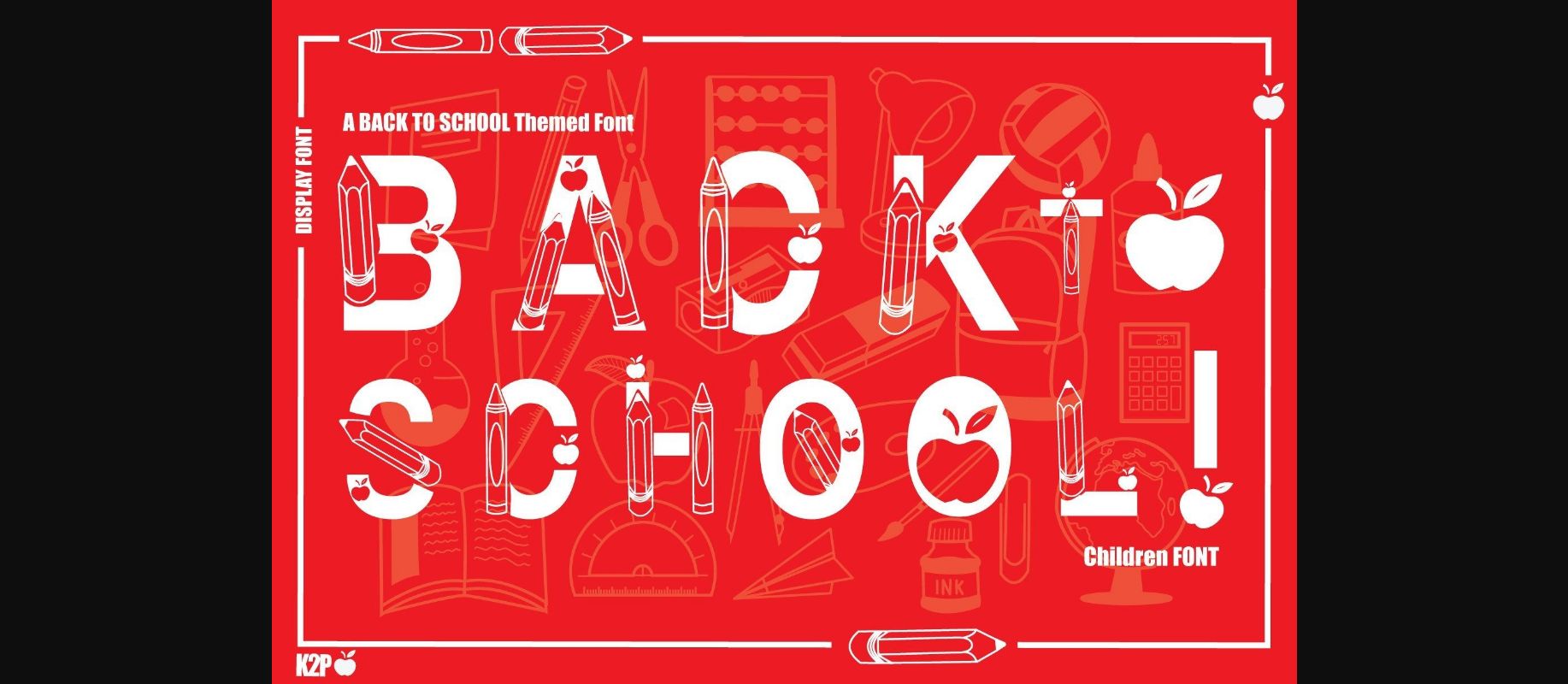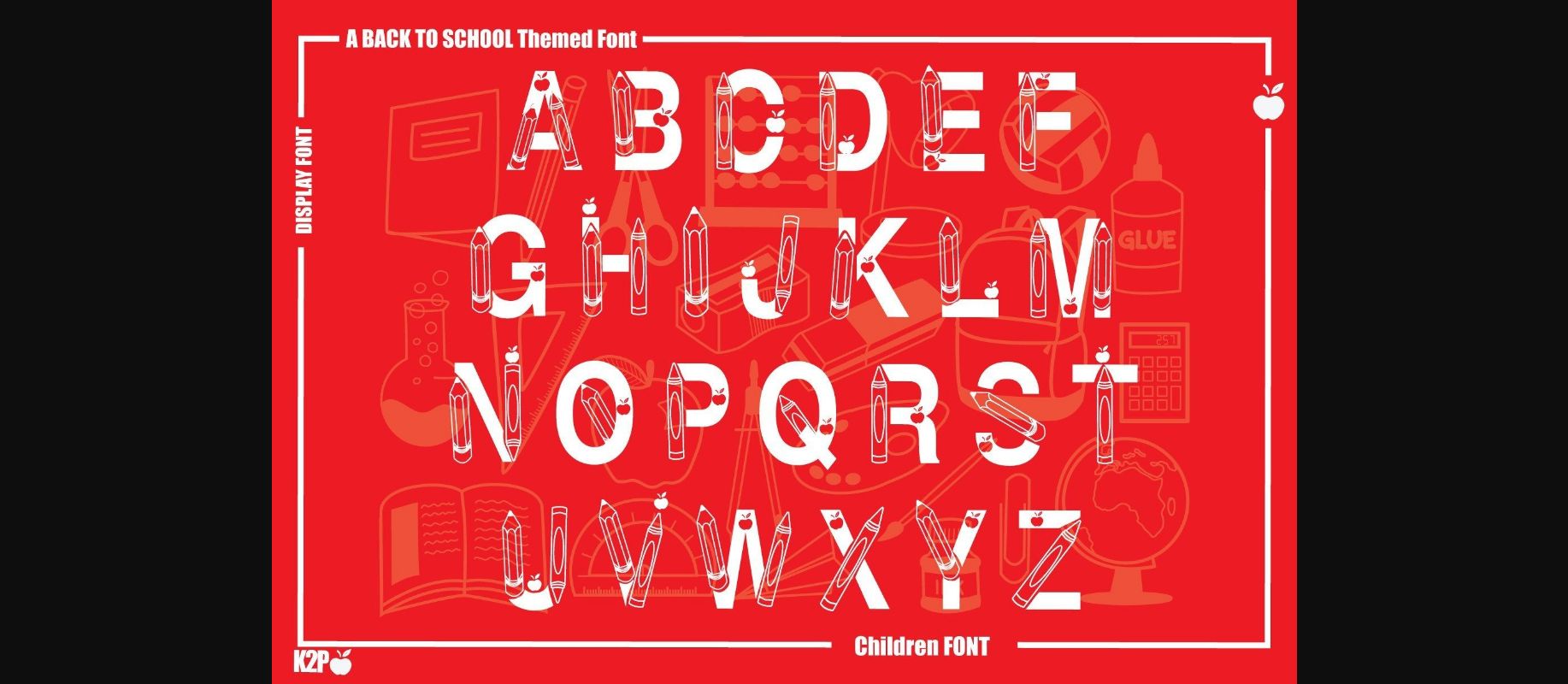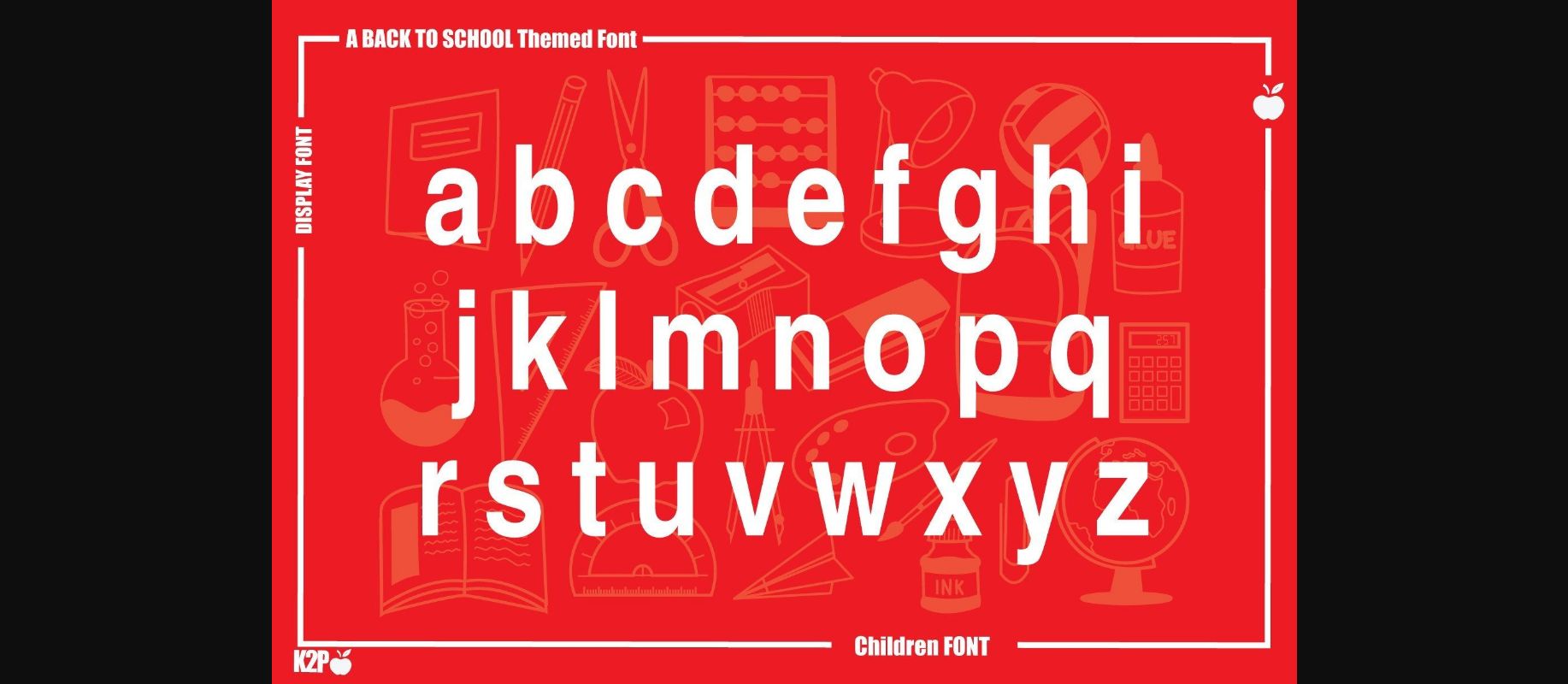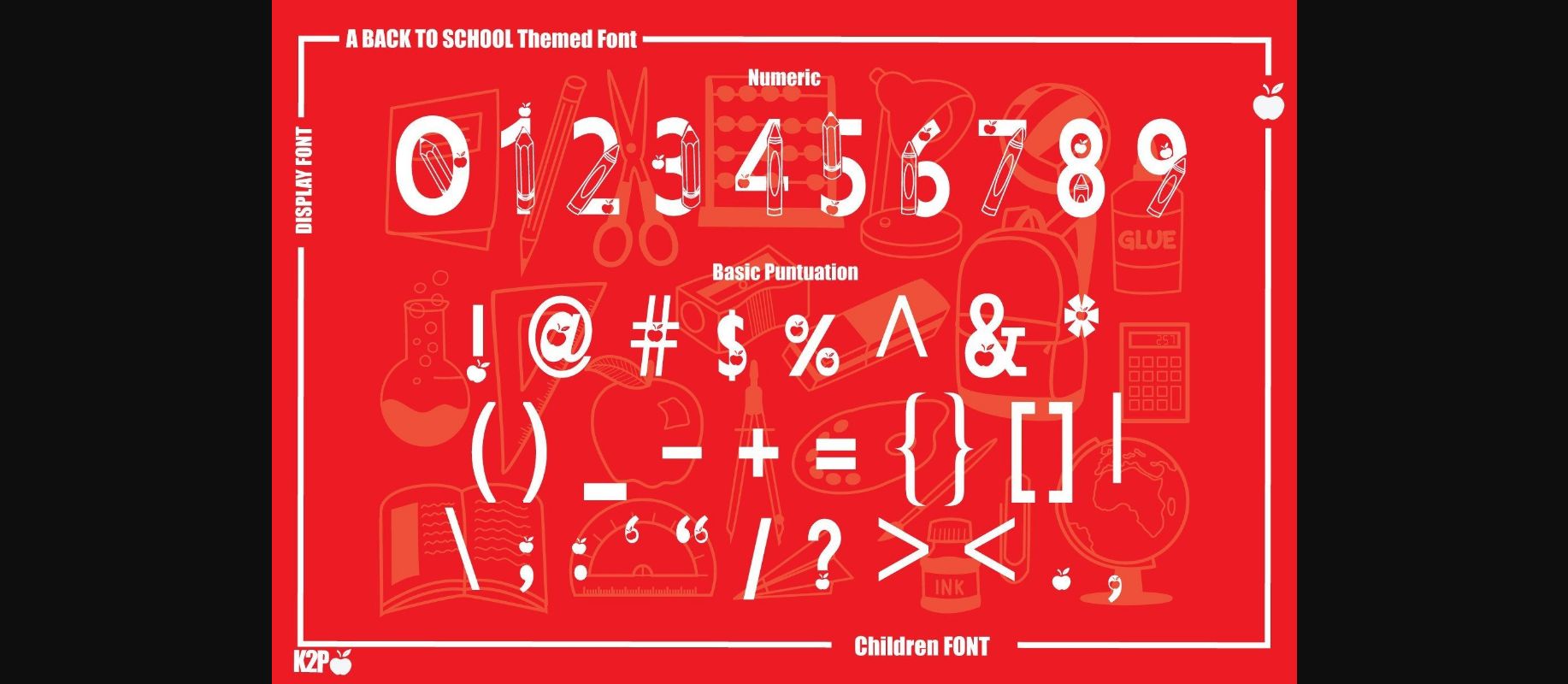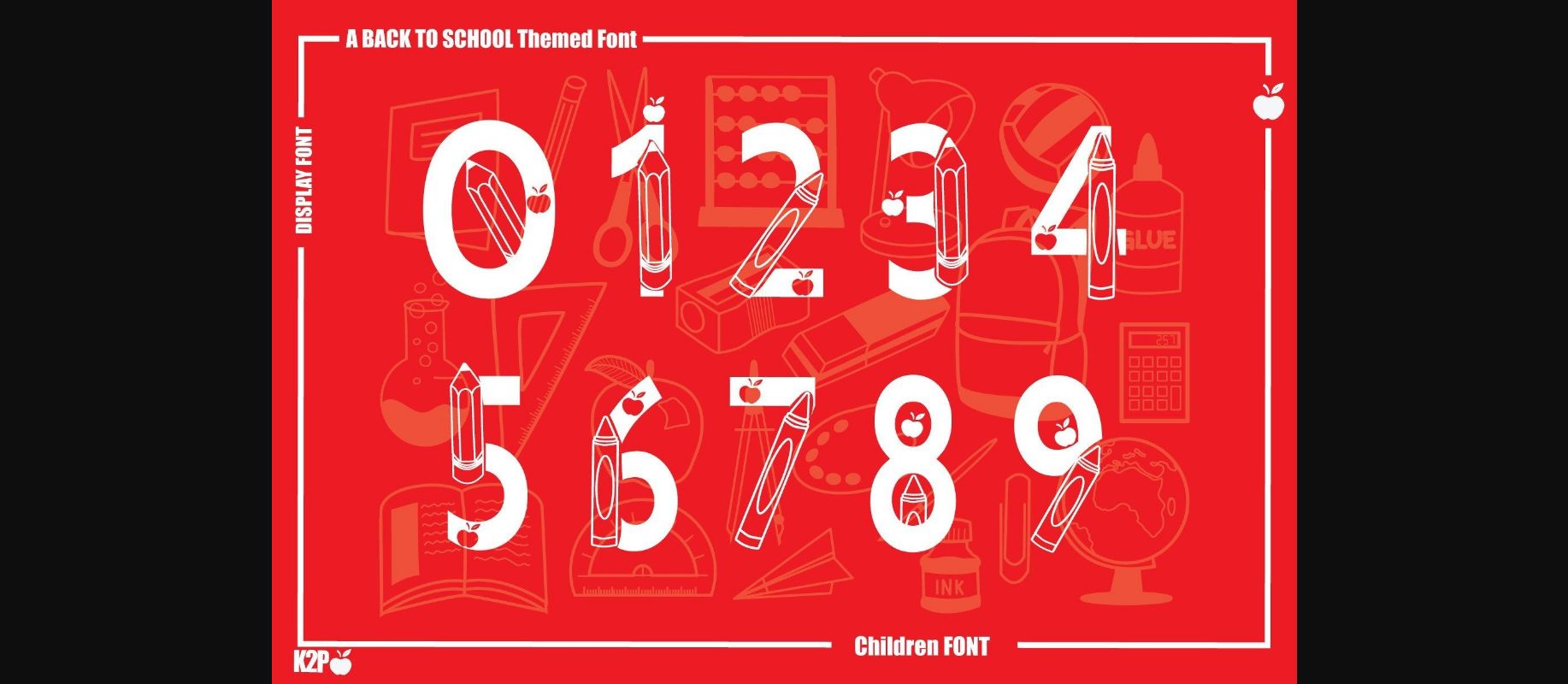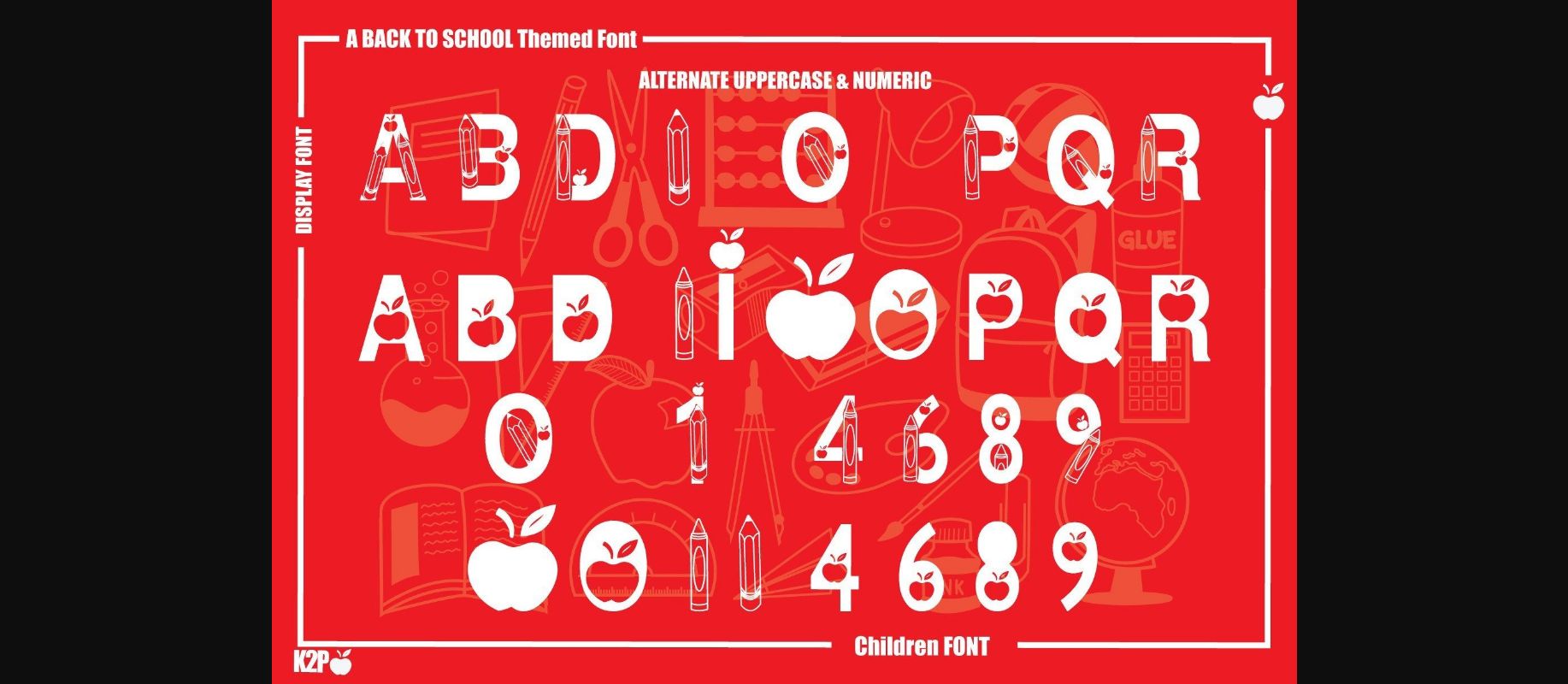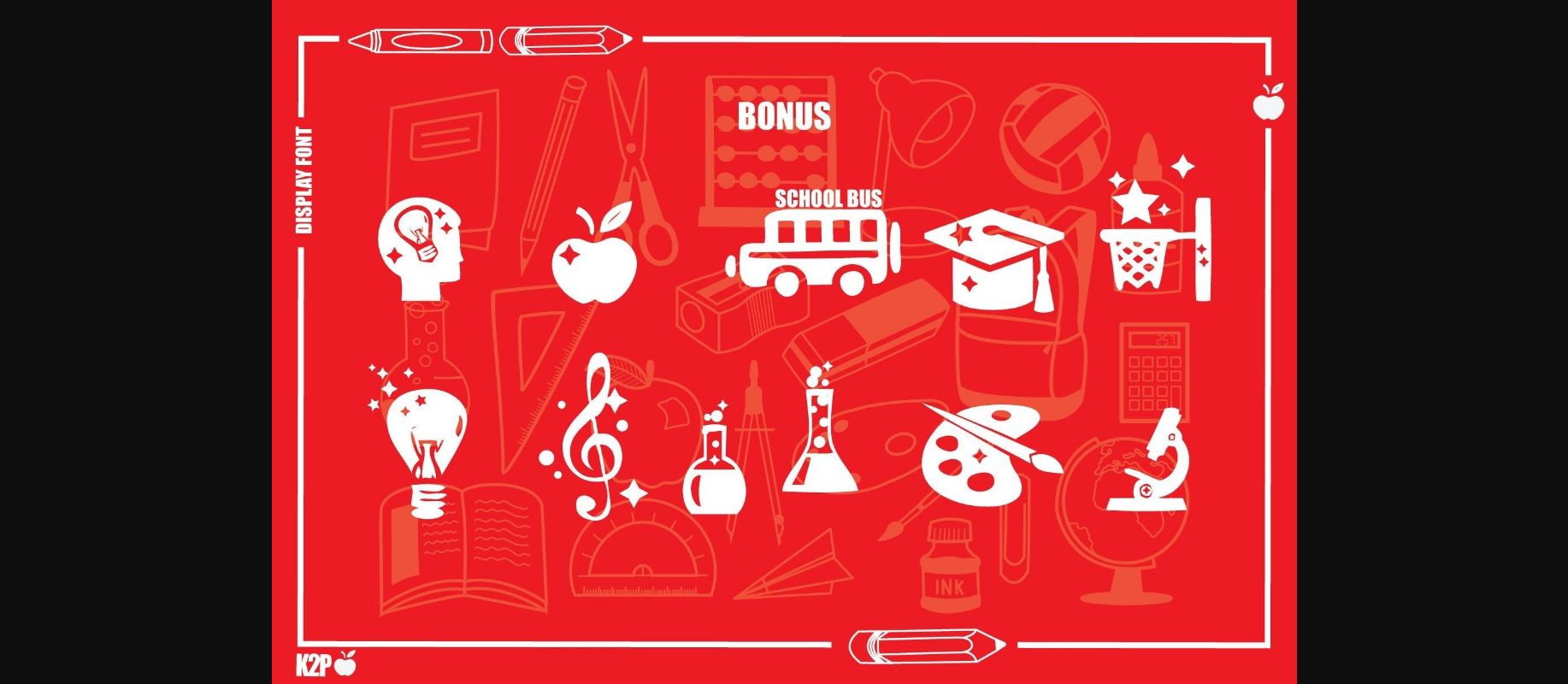
Back to School Font
About Back to School Font
Back to School is a thick lettered and incredibly unique decorative font. It can be used for various design ideas, particularly those related to children’s games and school. This font is PUA encoded which means you can access all of the glyphs and swashes with ease!